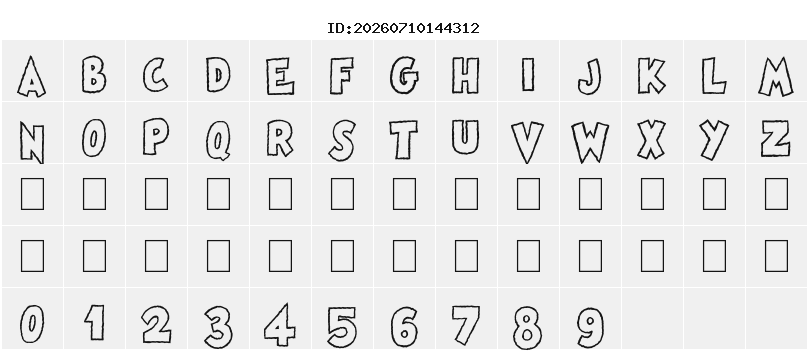
• Font Name: Famous Oldies Plain
• Full Font Name: Famous Oldies Plain
• Designer: Imagex
About Famous Oldies Plain.ttf
Famous Oldies Plain.ttf is a modern, elegant sans-serif font designed for ultimate readability and visual harmony. Perfect for branding, headlines, web design, and print materials.